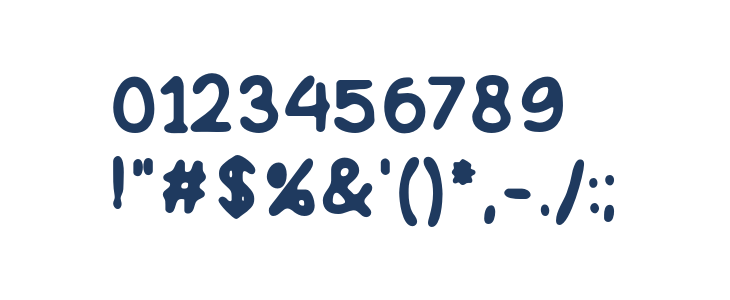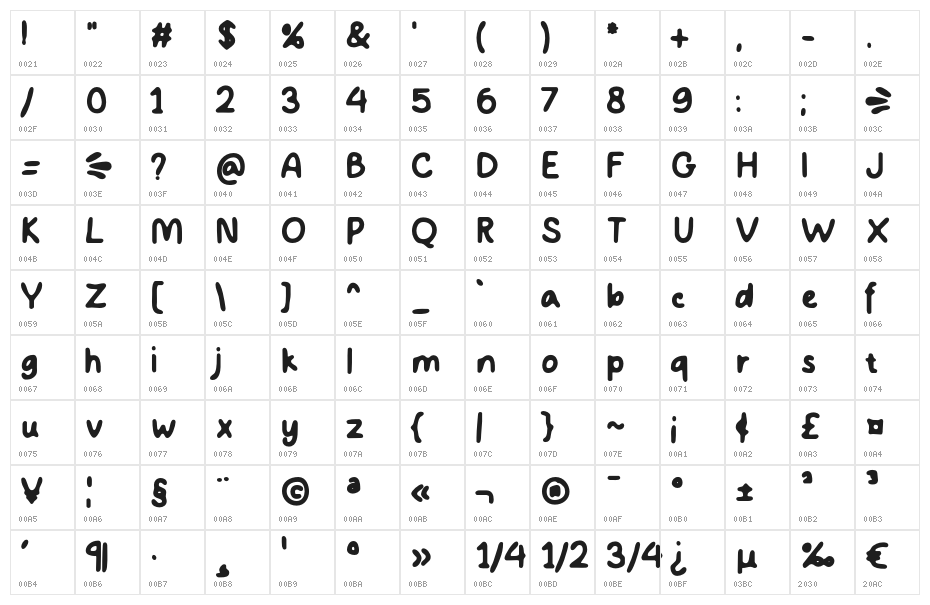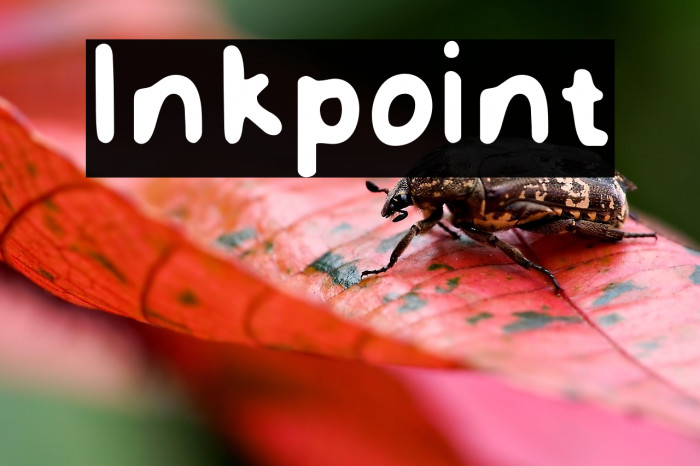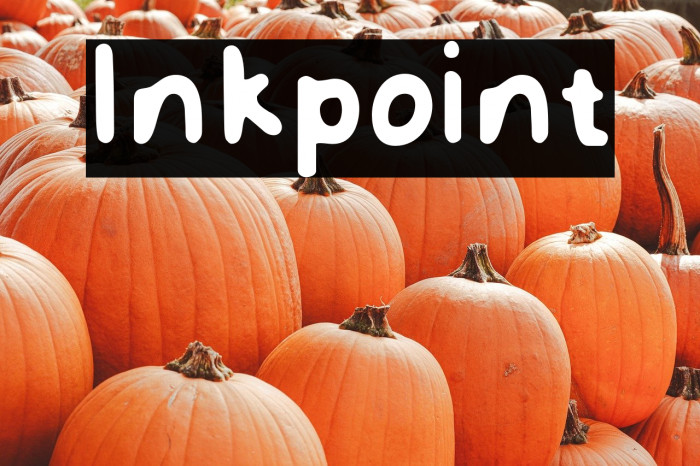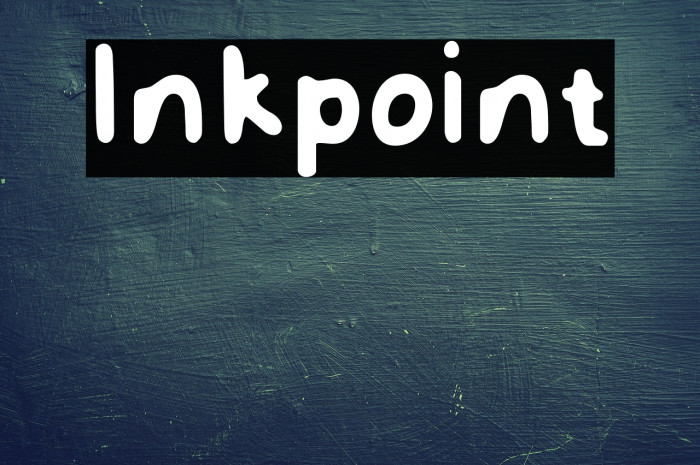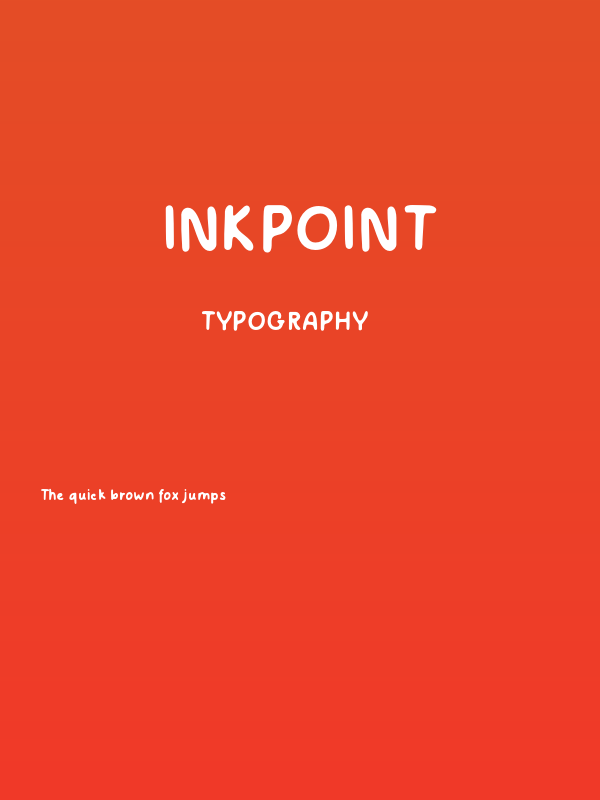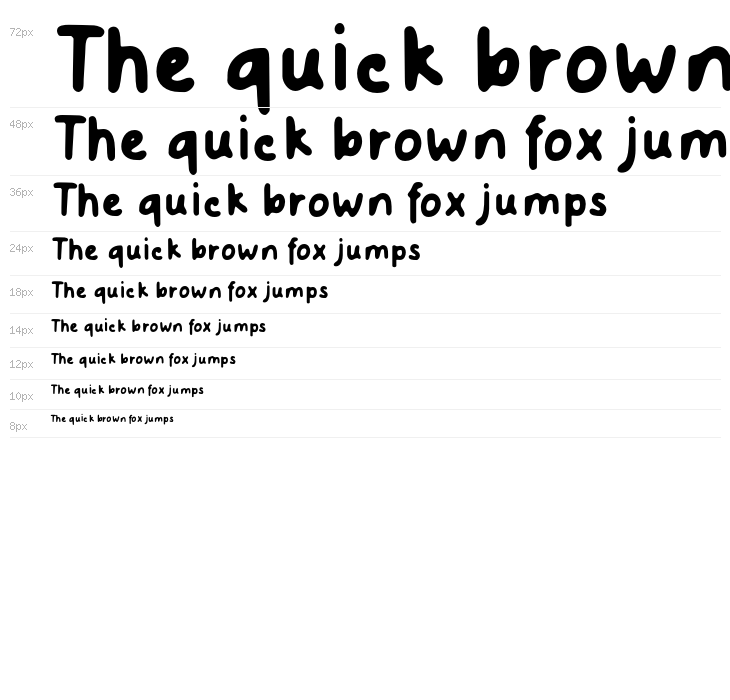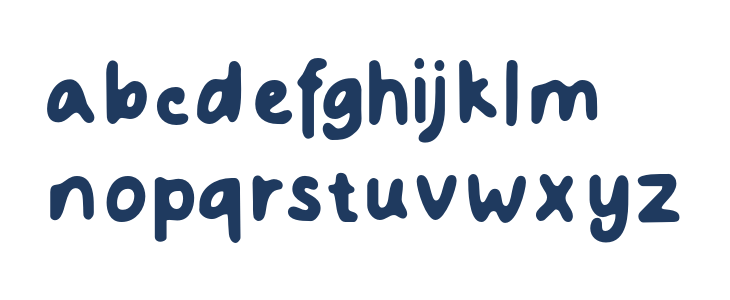
Inkpoint Font
Inkpoint Description
This playful and bold font features rounded, thick strokes that give it a friendly and approachable appearance. The characters are slightly irregular, adding a whimsical touch that makes it stand out. Its boldness ensures high readability, while the rounded edges soften the overall look, making it suitable for informal and fun designs. The font includes a full set of uppercase and lowercase letters, numbers, and a variety of special characters, providing versatility for different design needs.
| Overall Style | Playful |
| Proposed Projects | Ideal for children's books, playful branding, casual invitations, and fun posters. |